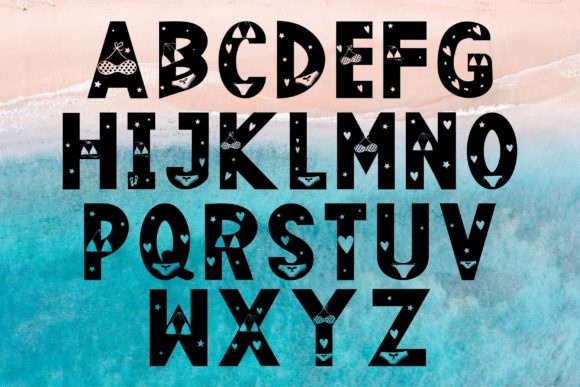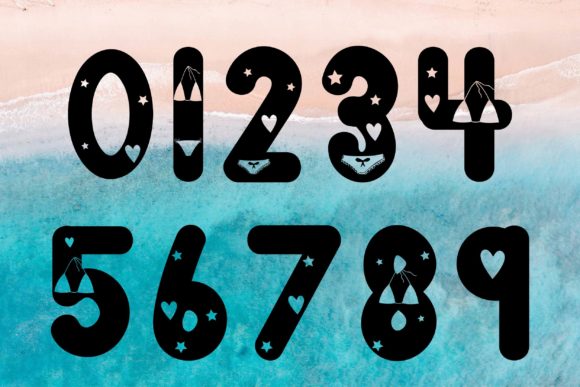
Bikini Font: The Ultimate Decorative Font for Your Design Needs
Are you a designer or crafter looking for a unique and eye-catching font to elevate your designs? Look no further than the Bikini Font! This beautifully designed decorative font is sure to add a touch of beauty and cuteness to any project, with every letter boasting a unique and stunning touch that will bring your designs to life.
What is Bikini Font?
Bikini Font is a one-of-a-kind decorative font that is designed to evoke the beauty and allure of a bikini. With its playful and charming aesthetic, this font is perfect for designers and crafters who want to add a touch of fun and whimsy to their designs. Whether you’re working on a branding project, a craft project, or simply want to create something beautiful, Bikini Font is the perfect choice.
Unique Features of Bikini Font
So, what sets Bikini Font apart from other fonts? Here are just a few of its unique features:
- Beautifully designed letters: Each letter in the Bikini Font has a unique and beautiful touch, making it perfect for designs that require a personal touch.
- Cute and playful aesthetic: The font has a fun and playful vibe that’s perfect for designs that require a lighthearted touch.
- Highly versatile: Bikini Font can be used for a wide range of design projects, from branding and advertising to crafting and DIY projects.
Uses for Bikini Font
Bikini Font is a versatile font that can be used for a wide range of design projects, including:
- Branding and advertising: Use Bikini Font to create eye-catching logos, advertisements, and marketing materials that will grab attention and leave a lasting impression.
- Crafting and DIY projects: Add a personal touch to your crafting and DIY projects, such as handmade cards, gift tags, and scrapbooking pages.
- Social media graphics: Use Bikini Font to create stunning social media graphics, such as Facebook posts, Instagram stories, and Pinterest pins.
- Wedding and event planning: Add a touch of elegance and sophistication to your wedding and event planning materials, such as invitations, menus, and place cards.
Tips for Using Bikini Font
Here are a few tips for using Bikini Font in your designs:
- Experiment with different colors: Try pairing Bikini Font with different colors to create a unique and eye-catching look.
- Use it sparingly: Because Bikini Font is a decorative font, it’s best to use it sparingly to avoid overwhelming the design.
- Pair it with other fonts: Try pairing Bikini Font with other fonts to create a unique and interesting contrast.